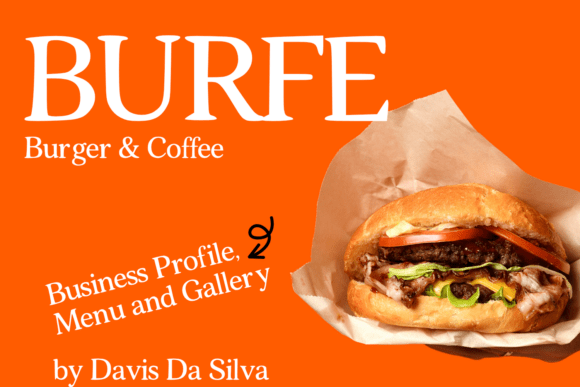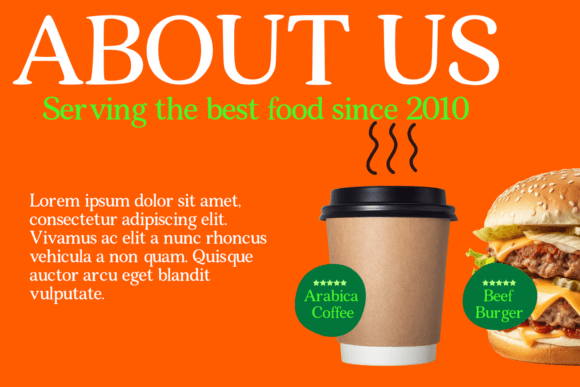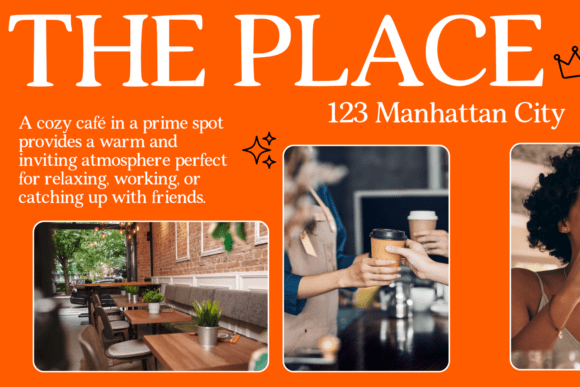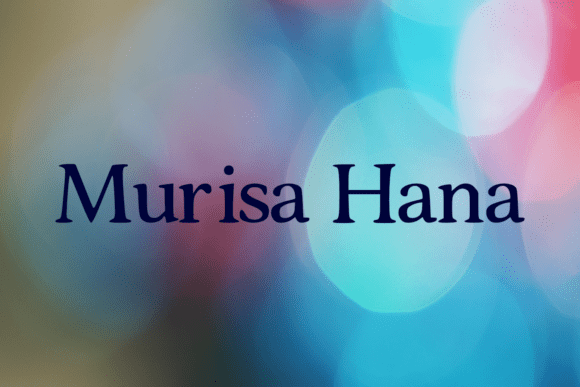
Introduction to Murisa Hana Font
Murisa Hana | Minimalist Serif For a look that is both approachable and refined, Murisa Hana offers a fresh take on the classic serif.
With its clean lines, balanced proportions, and subtle, rounded serifs, this font provides excellent readability while maintaining a soft, friendly aesthetic It’s the perfect versatile tool for editorial layouts, minimalist branding, and modern web headings where clarity and style are equally important.
Key Features of Murisa Hana Font
Why Choose Murisa Hana Font?
Murisa Hana Font offers exceptional quality and versatility, making it a valuable addition to your design toolkit. Whether you’re creating for personal projects or commercial use, Murisa Hana Font delivers professional results.